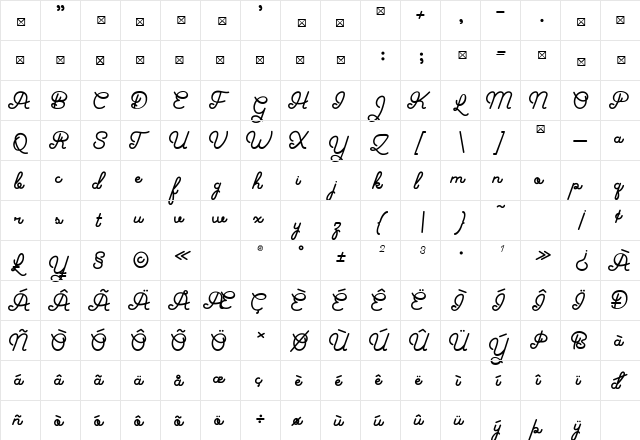
Morlyn Regular
| Foundry | Yunita Ecy |
| Designer | Yesie Erma Yunita |
Design Context for Morlyn Typeface
Morlyn is a composed and adaptable typeface that performs quietly and consistently across a wide range of design contexts.